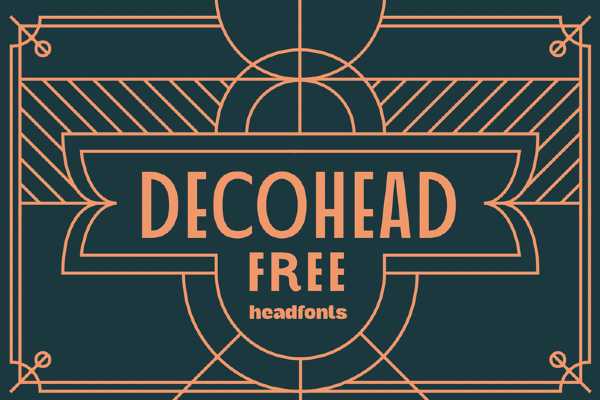
Creating your own unique images, logos and graphics is easy with our Art Deco font generator tool. The art deco style and associated lettering style originated in France in the early 1900s. This style became a status symbol for the early part of the 20th century, with people opting to decorate their homes with art deco wallpaper and elegantly carved pieces of furniture. The art deco era also spawned a plethora of art deco fonts. These fonts have been used in almost everything you can think of. From silent movies and posters to more modern things like video games and celebratory cards. And now, thanks to our art deco logo generator tool you can create your very own unique and personalised art deco designs.